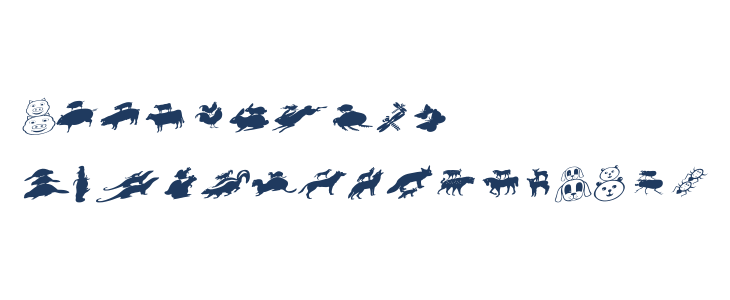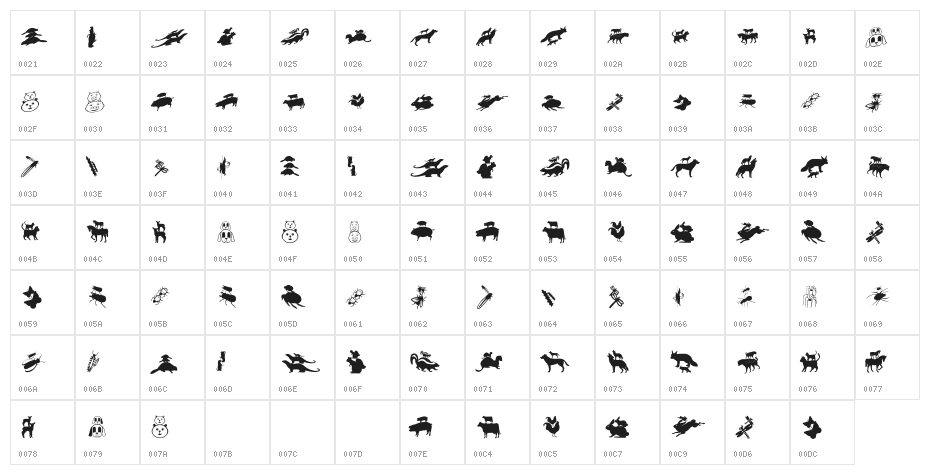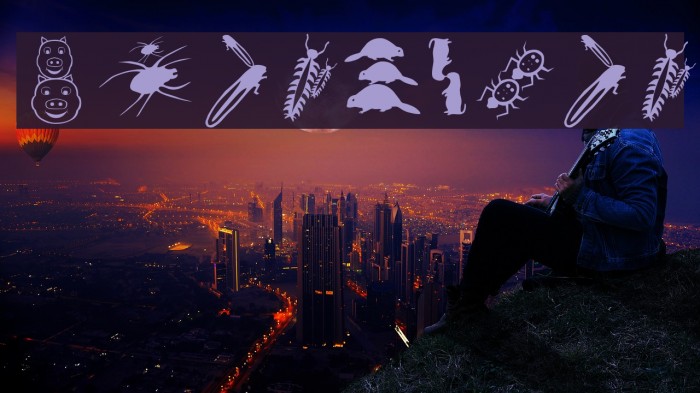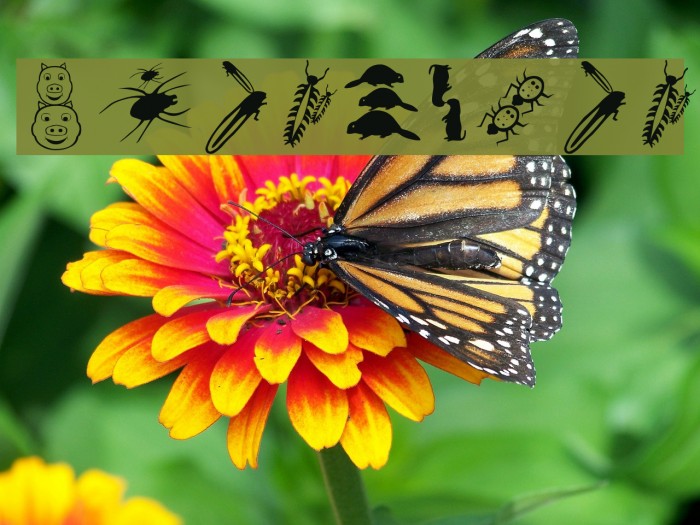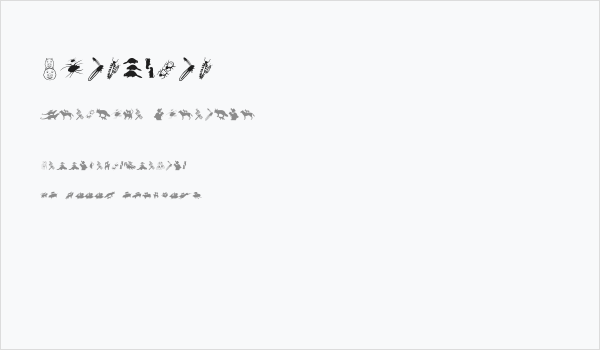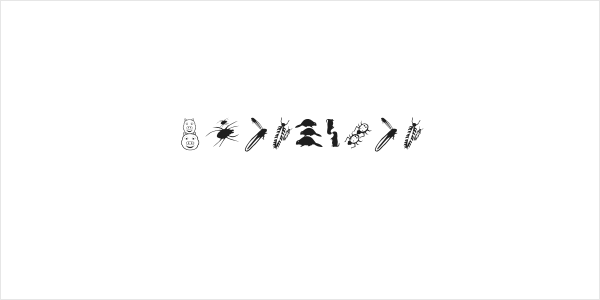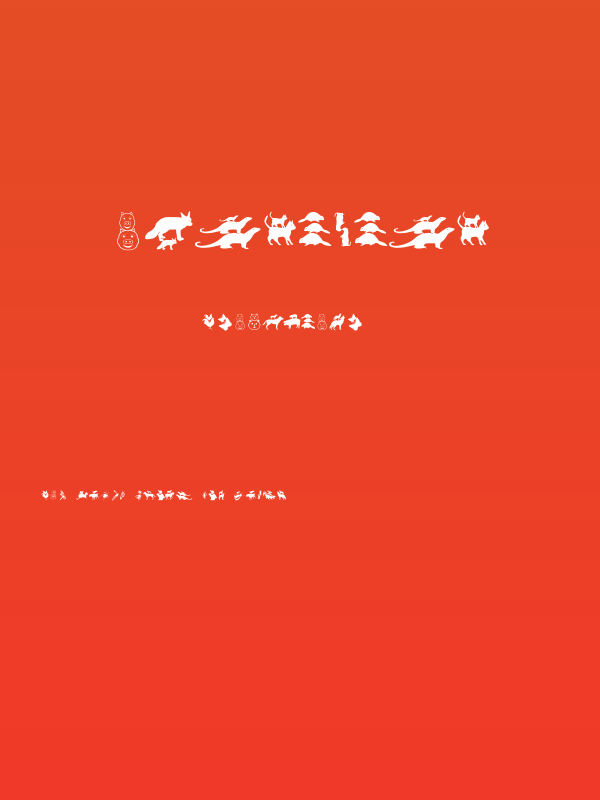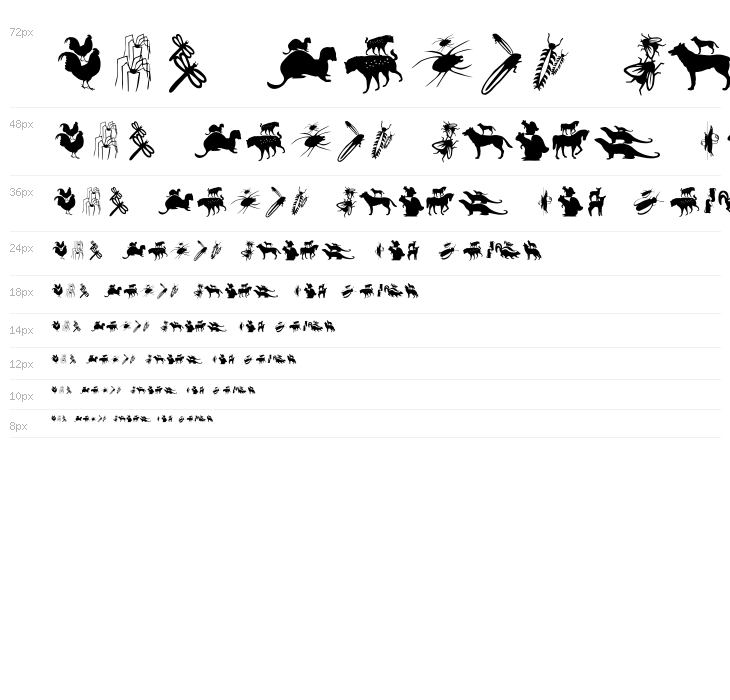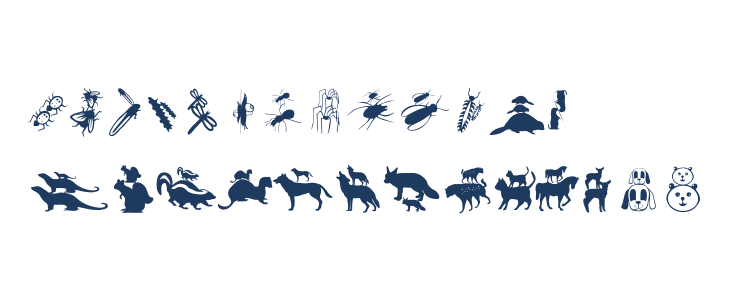
PickABack Font
PickABack Description
A whimsical decorative font composed entirely of animal and insect silhouettes, often featuring one animal riding on the back of another. Each character is a unique pictogram, making it highly illustrative and playful, with a mix of solid and outlined forms.
| Overall Style | Decorative, Whimsical, Playful |
| Use Case | Logos, Headlines, Posters, Themed graphics |
| Proposed Projects | ChildrenΓ’β¬β’s books, educational materials, animal-themed posters, playful branding, decorative headings. |